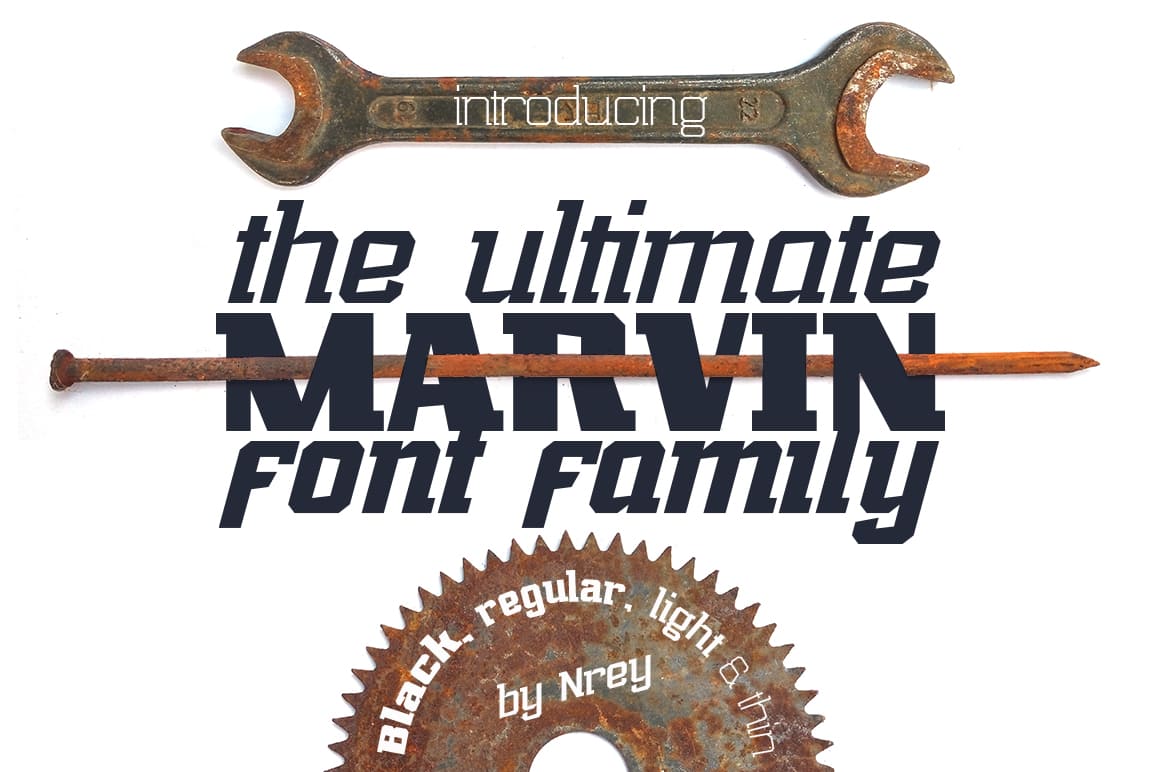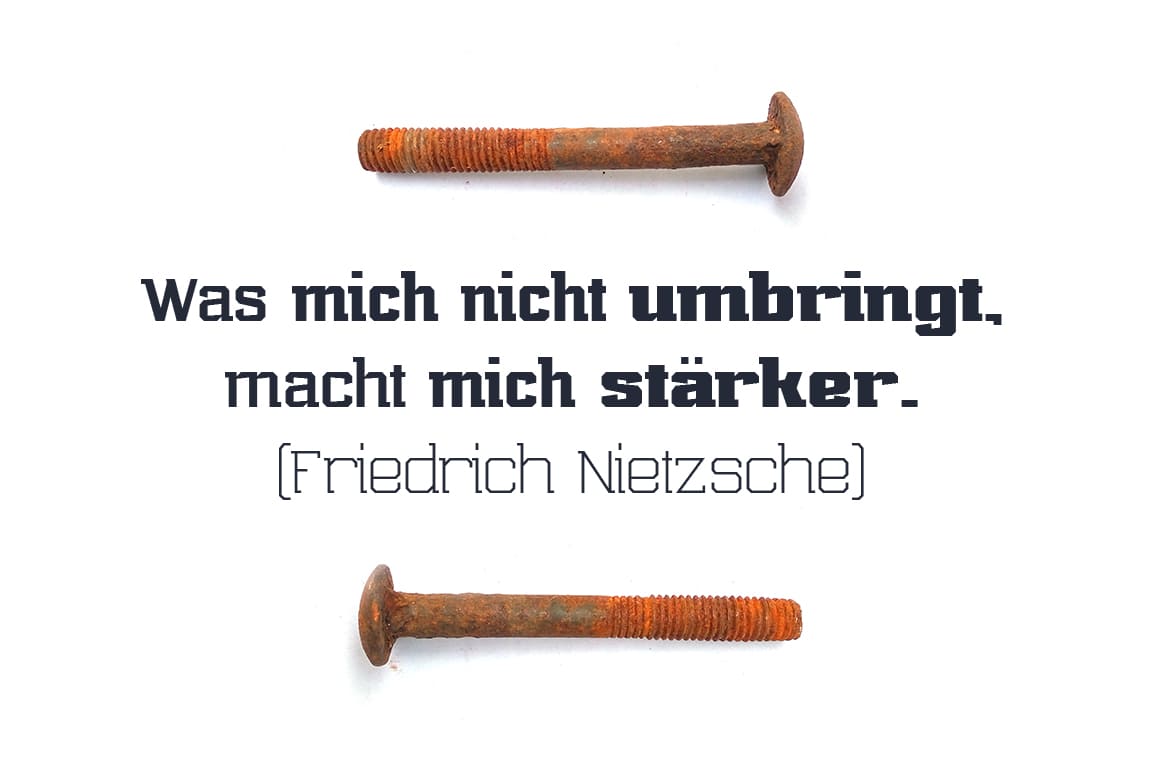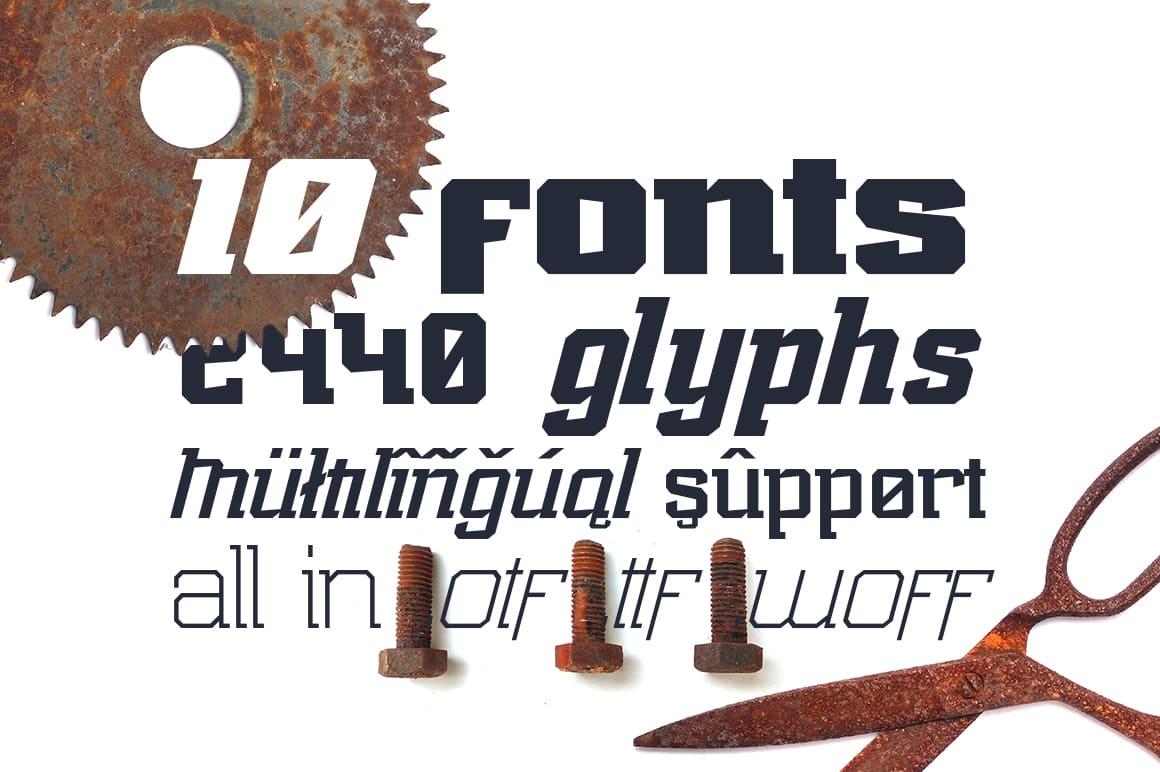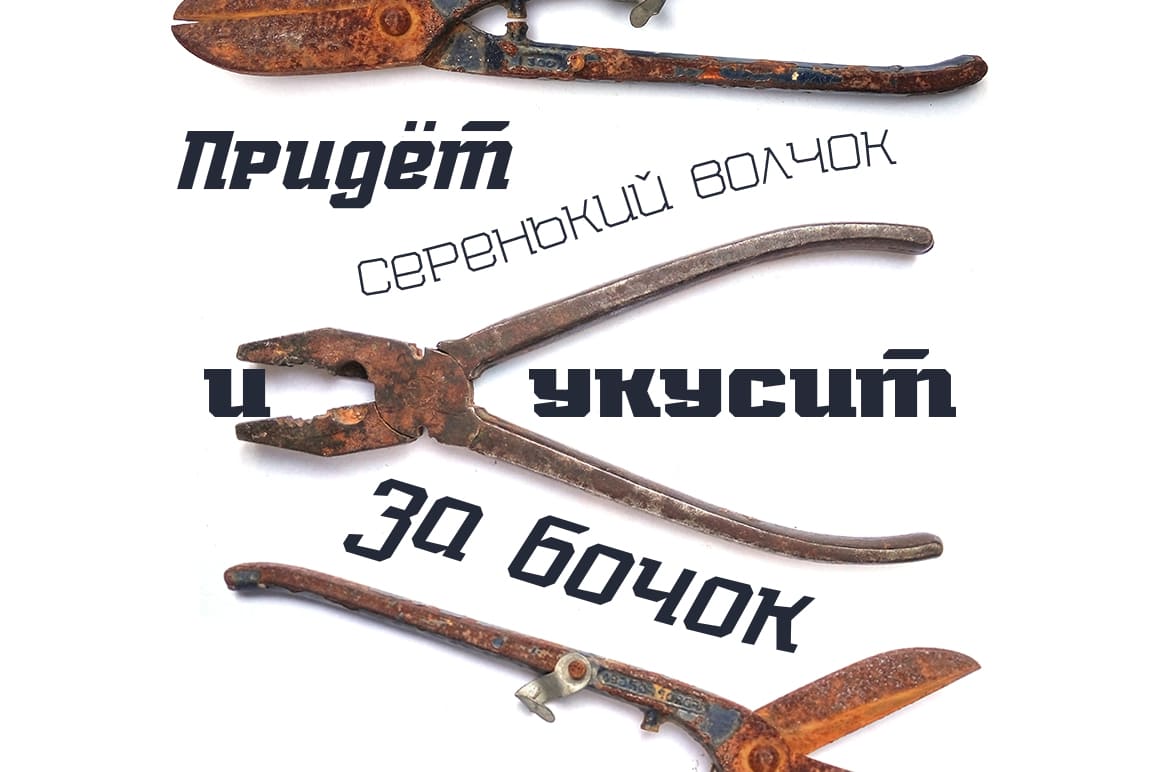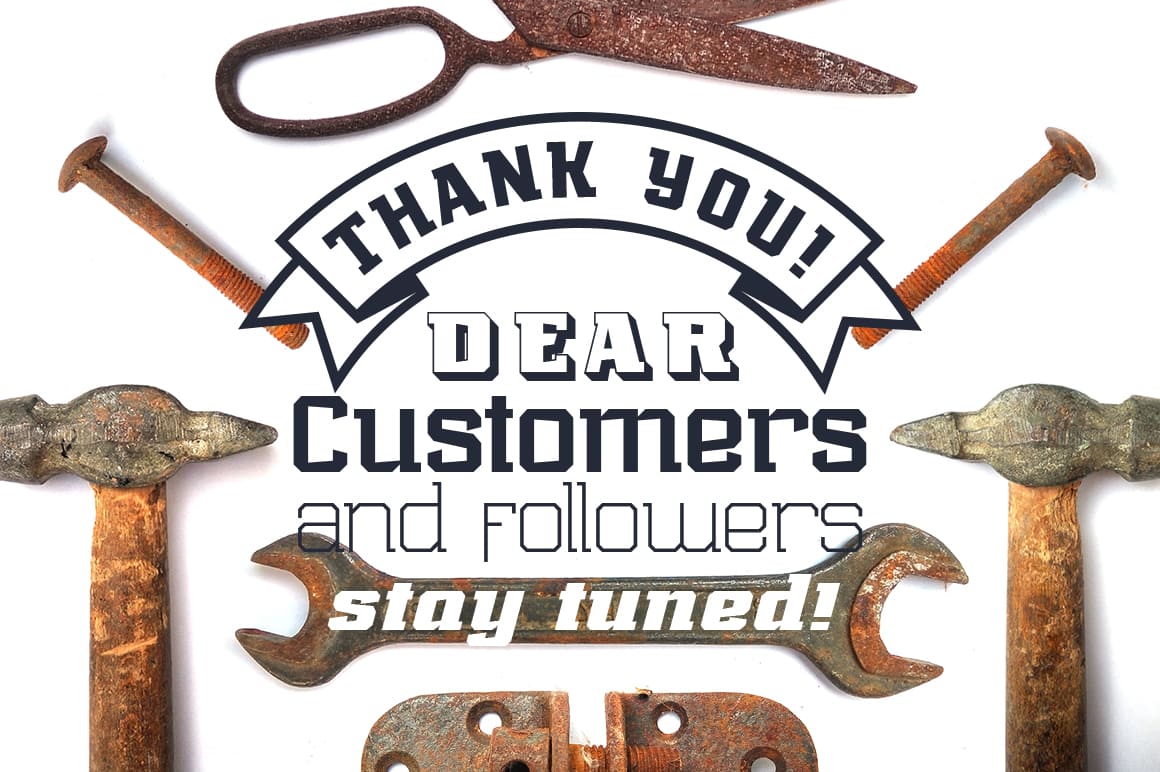
Marvin Pro Family (10 fonts)
This font was inspired by Marvin Heemeyer and contains 4 weights from strength to easy light thin lines. Marvin Pro looks amazing as single words and as full text blocks and looks good in bright captions and logos.
Marvin Pro supports the following languages: Czech, Danish and Norwegian, Deutsch, English, Espanol, French, Italiano, Magyar, Nederlands, Polish, Portuguese, Finnish, Swedish, Turkish, Russian and other languages based on the extended latin character set.